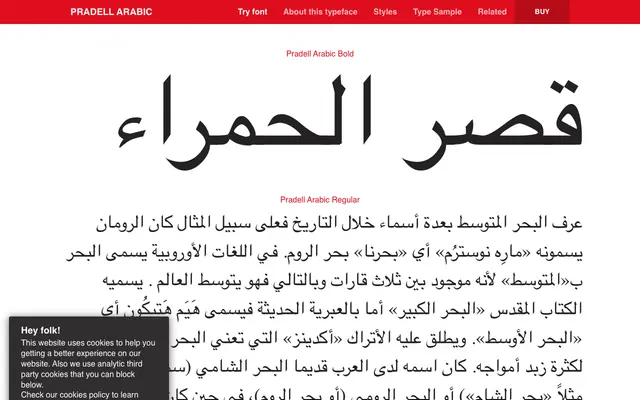
Pradell Arabic
Typerepublic · Andreu Balius · 2009
A multiscript typeface by Andreu Balius pairing a traditional Naskh-style Arabic with its Latin counterpart, Pradell, for literary text composition.
Designed between 2009 and 2013, this typeface draws on the Naskh calligraphic tradition to produce an Arabic script suited to literary typesetting. The family covers extended Arabic including Farsi and Urdu, alongside extended Latin, and is offered in Regular and Bold weights. It won a European Design Award in 2011 and is conceived as a direct companion to the broader Pradell Latin family.
The Arabic script component follows the traditional Naskh calligraphic style, a broadly used serif-like script family for literary text; the Latin counterpart is the Pradell serif family, making this a multiscript serif pairing.